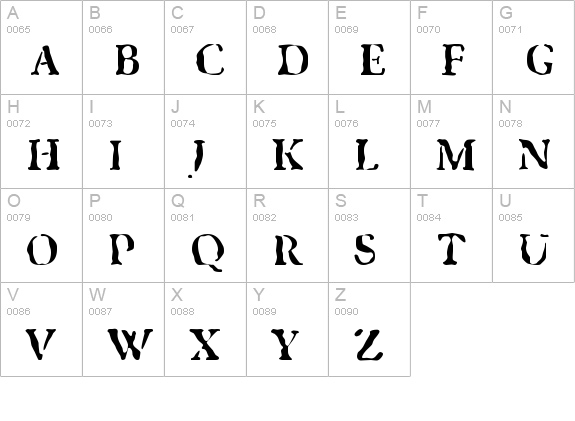
Introducing GhostTown font, a hauntingly beautiful typeface that captures the essence of the abandoned and mysterious. With its eerie yet elegant design, GhostTown font is perfect for adding a touch of the supernatural to your projects. Its unique style is reminiscent of old ghost towns, with a vintage feel that will transport you to another era. What makes GhostTown font even more appealing is that it is free to download at FontsMarket.com. This means you can easily add this captivating font to your collection without any cost. Whether you're working on a spooky Halloween design or want to infuse a sense of mystery into your branding, GhostTown font is the perfect choice. Download GhostTown font today from FontsMarket.com and explore the endless possibilities of this free and captivating typeface. Let your creativity roam freely in the ghostly world of GhostTown font.